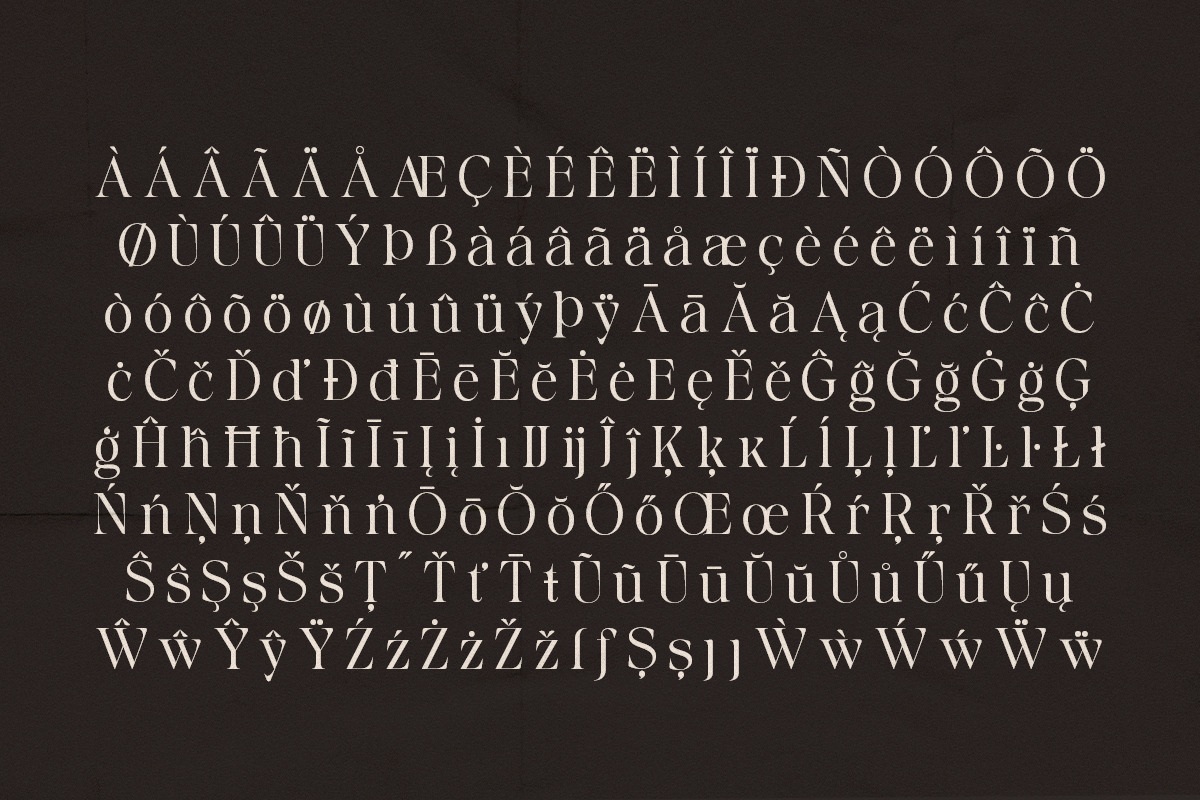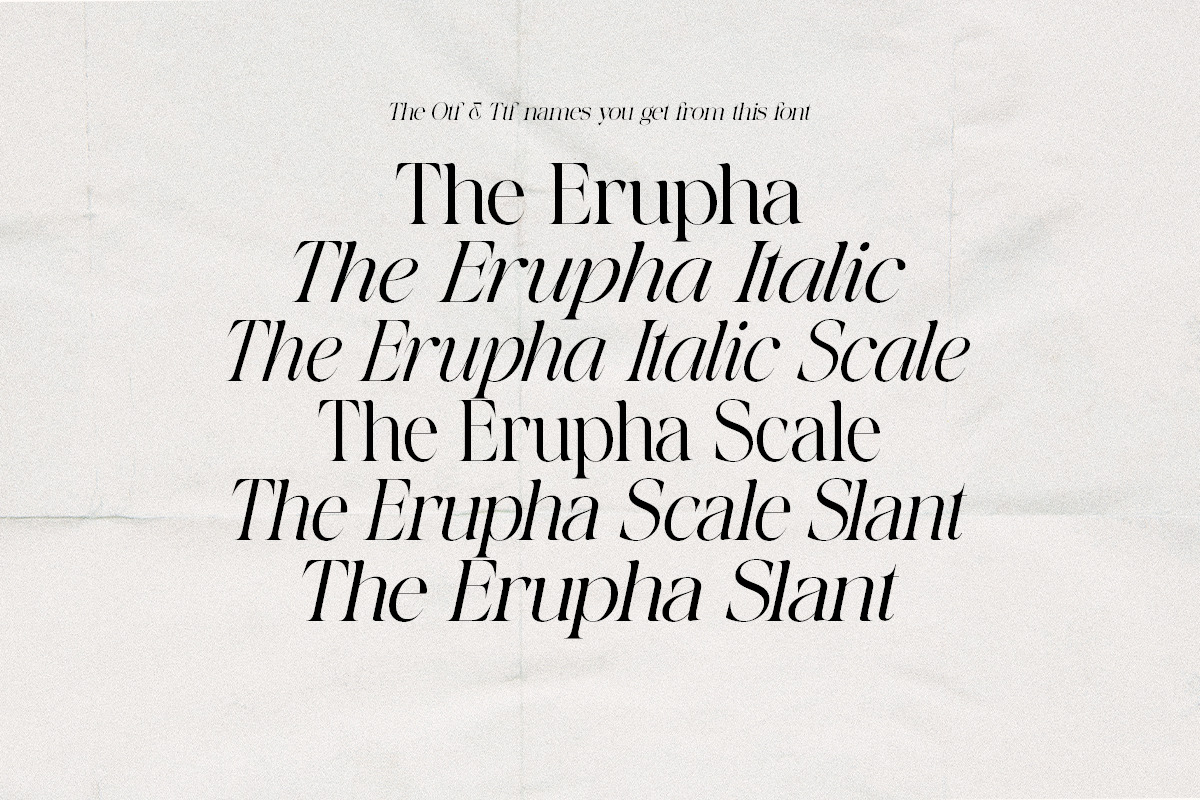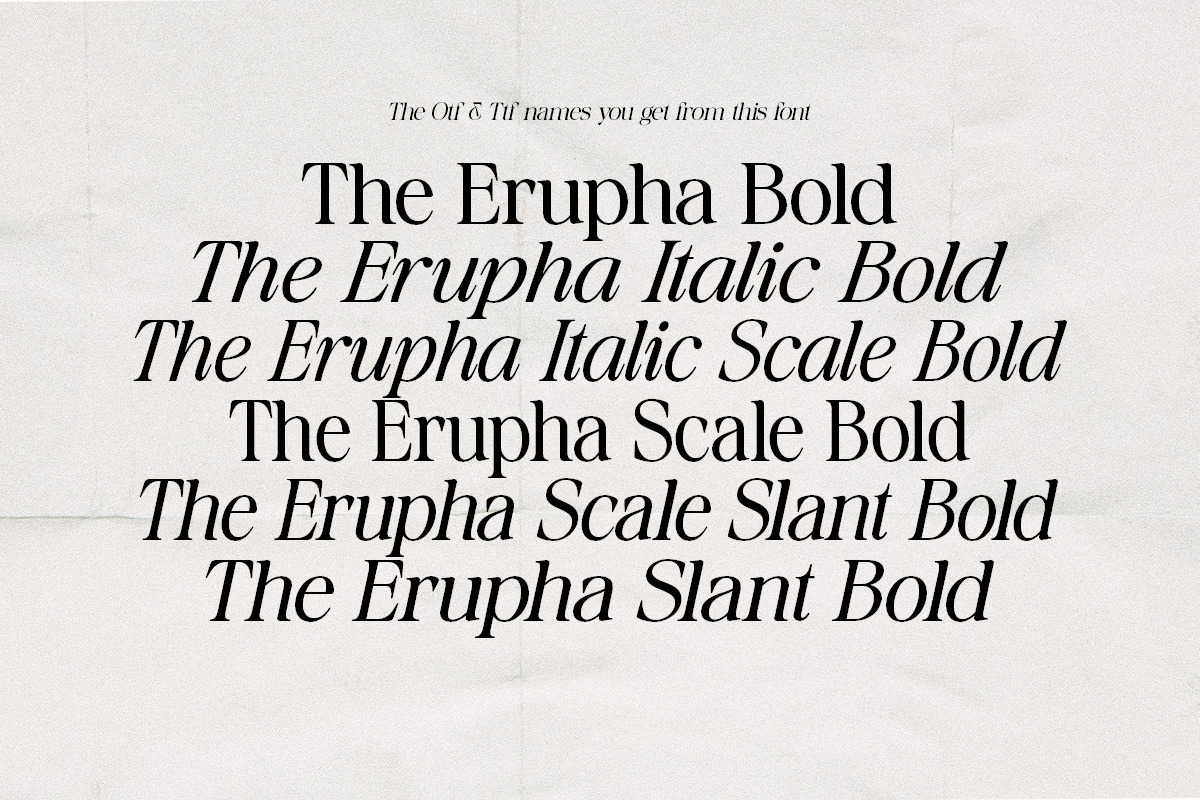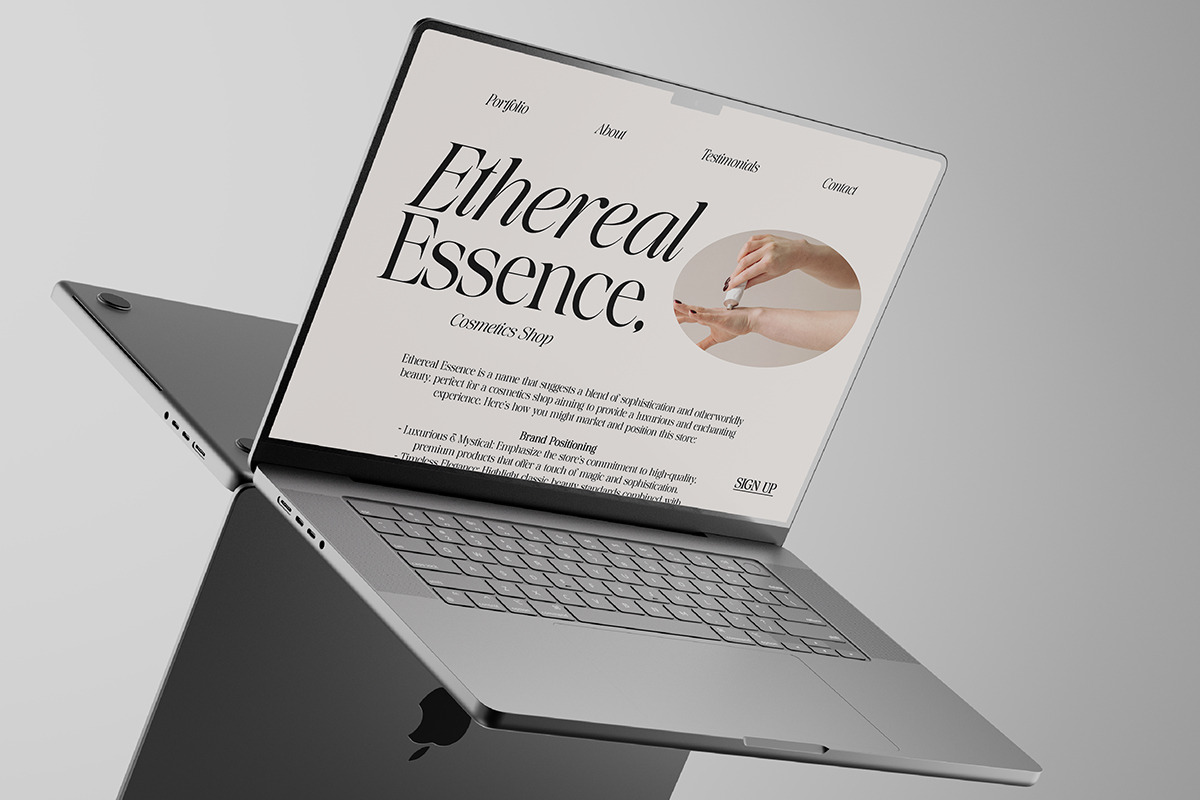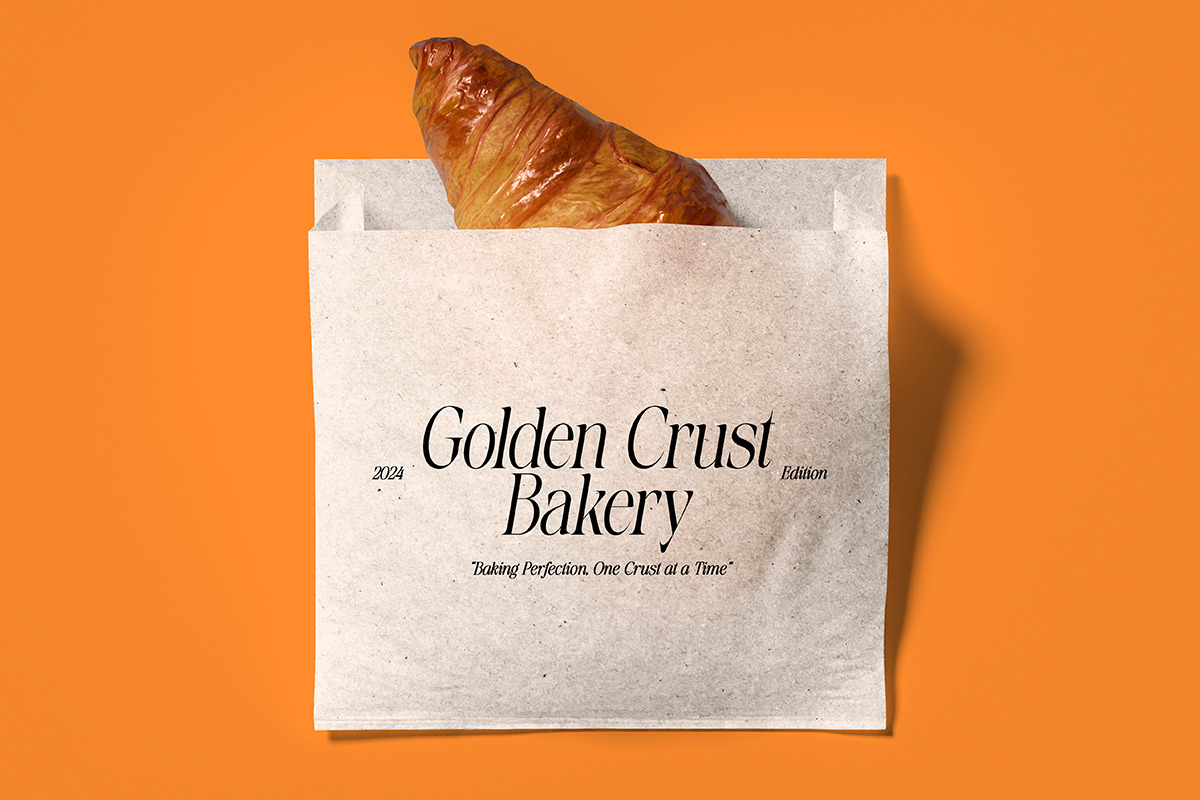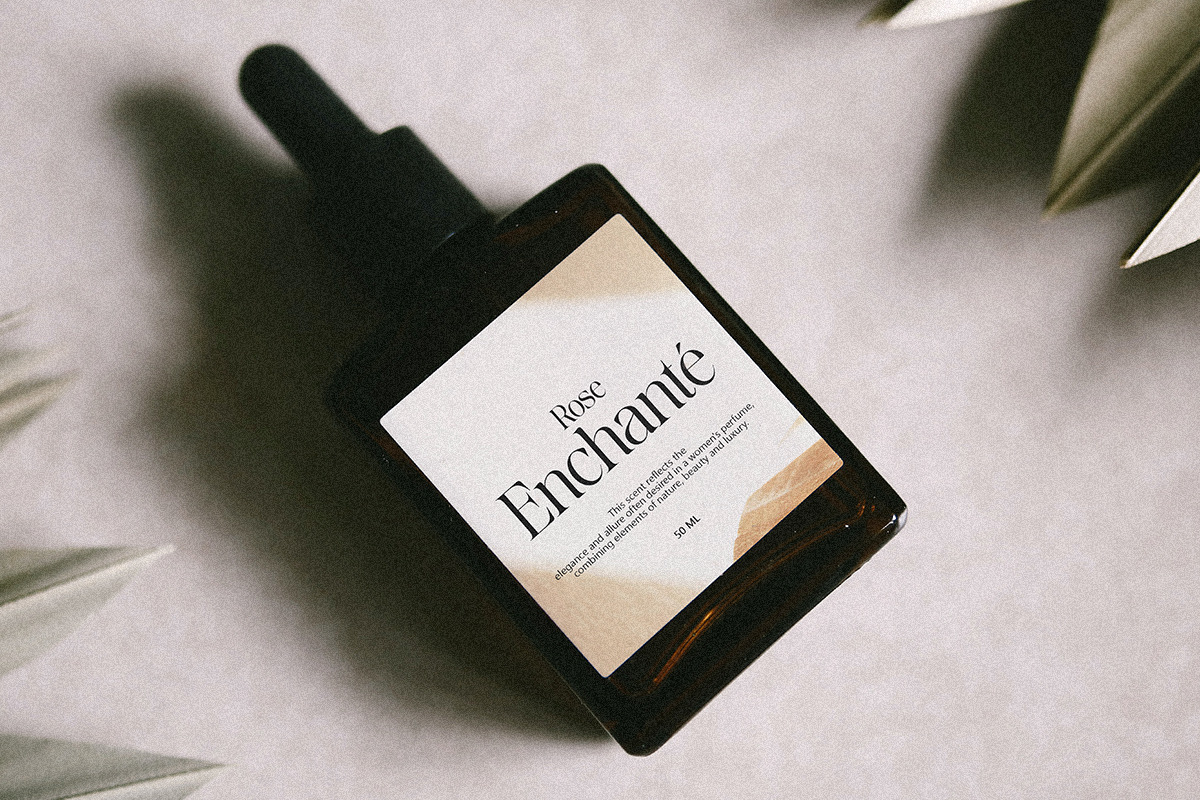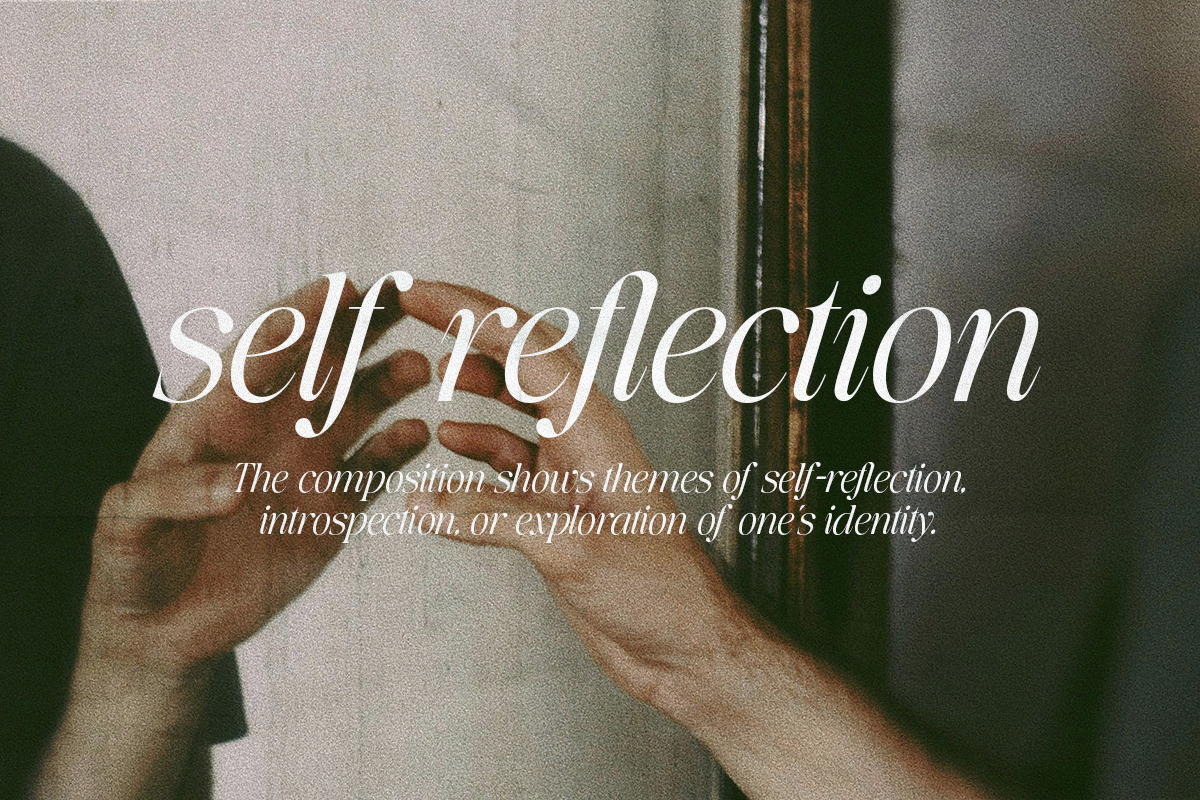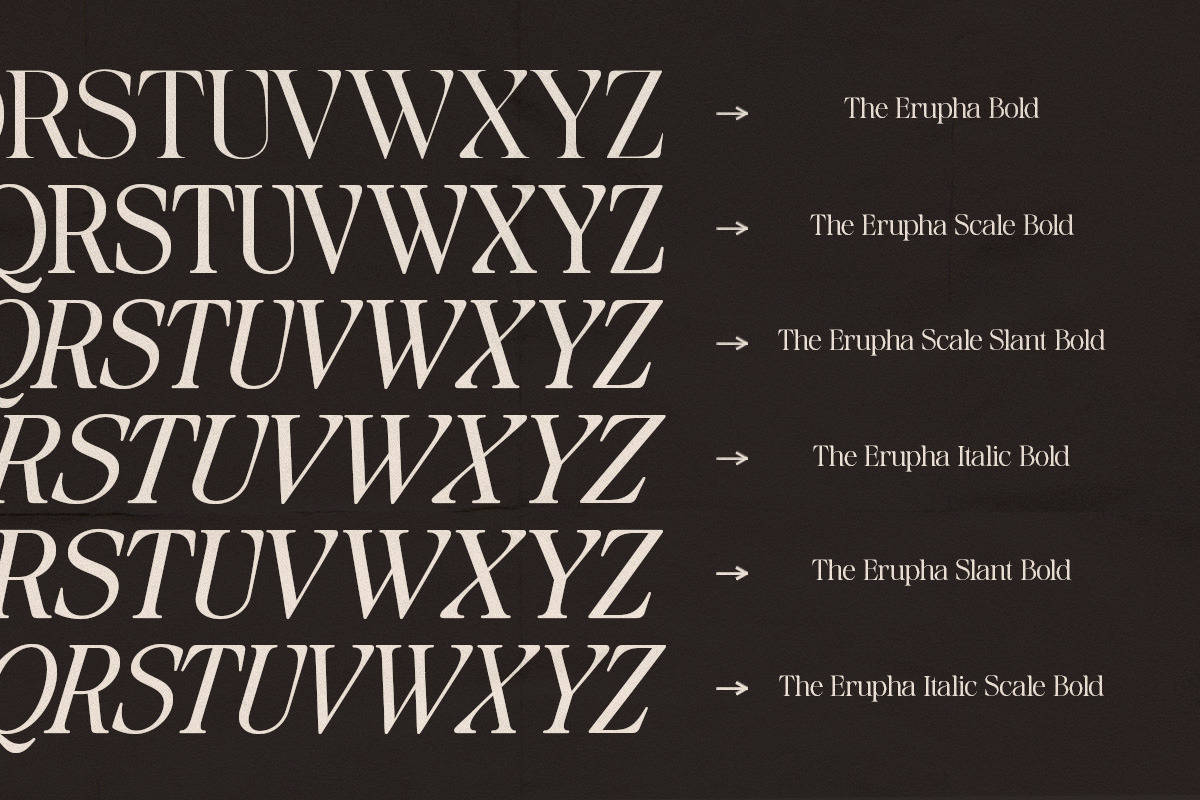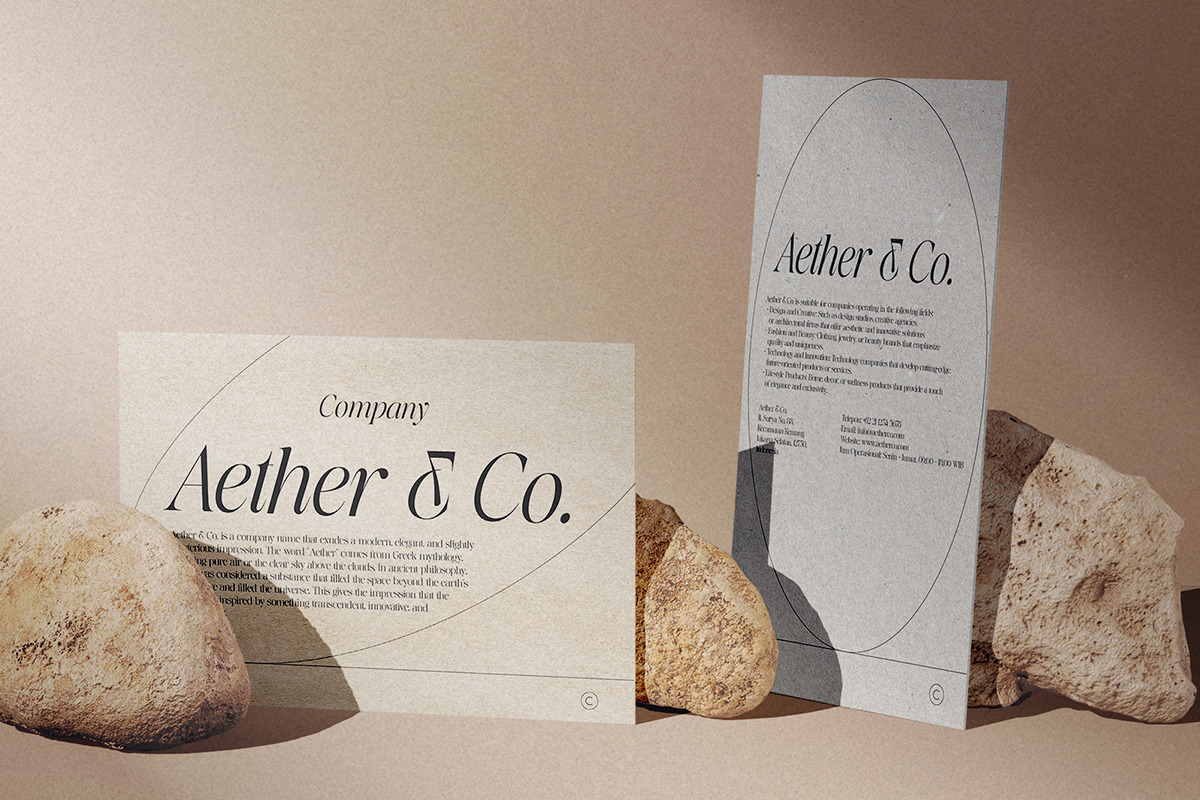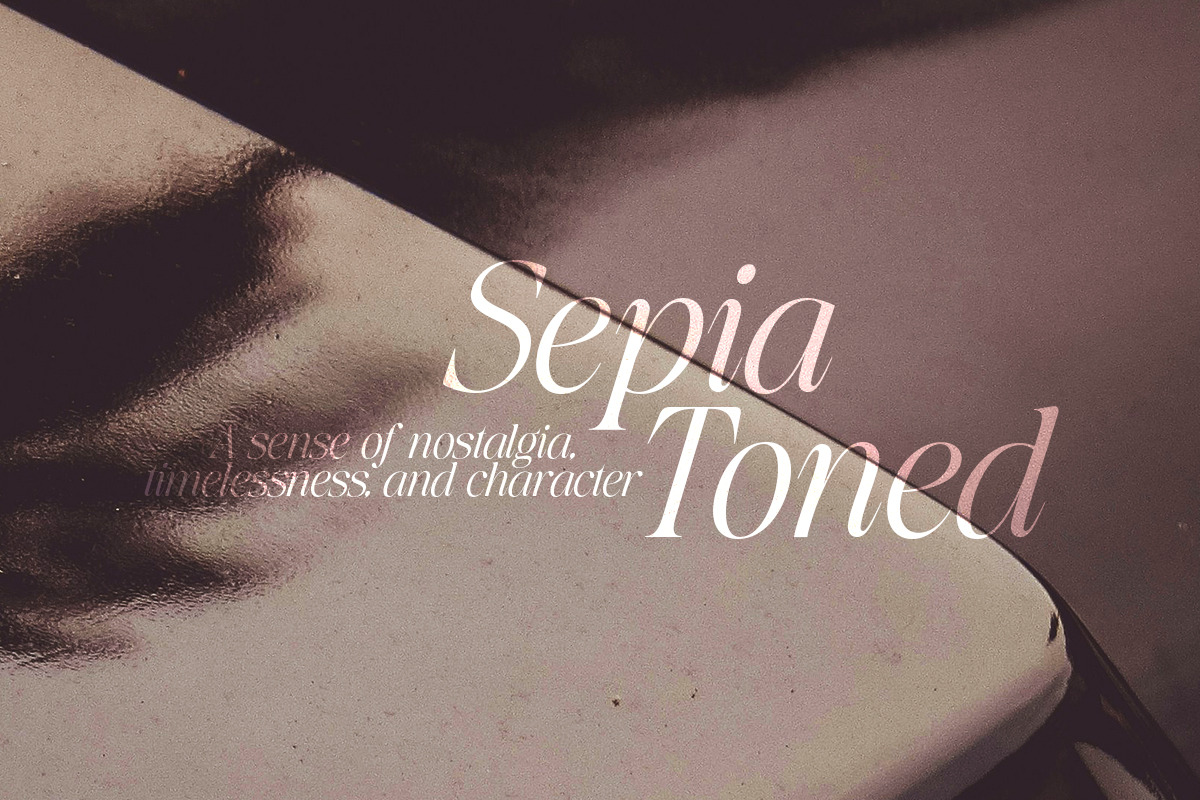
Introducing The Erupha: A Serif Typeface for Modern Aesthetics
Experience the charm of timeless elegance with The Erupha, a carefully crafted serif typeface that blends classic charm with contemporary style. Its high-contrast strokes and graceful curves create a visual symphony that captivates the eye and enhances any design. Whether you’re creating a sophisticated editorial layout, a striking brand identity, or an engaging website, The Erupha versatility and refined beauty will make your work stand out.
Immerse yourself in the world of The Erupha, where each character has been carefully designed to exude strength and refinement. From its carefully sculpted serifs to its perfectly balanced proportions, this typeface is a testament to the timeless power of classic typography. Its true italics, with their unique personality, add a touch of dynamic movement and visual interest, allowing you to create designs that are both captivating and easy to read.
Effortless Elegance Erupha’s clean lines and balanced proportions exude classic charm, making it ideal for a variety of applications.
Elegant Ligatures Add a touch of personality with a curated collection of ligatures, creating unique and eye-catching letter combinations.
OpenType Features Take full control of your typography with powerful OpenType features, including ligatures.
Multilingual Support With support for over 90 languages, The Erupha ensures your message reaches a global audience.
True Italics These are not just slanted versions—they’re thoughtfully designed to harmonize with the upright forms, creating a cohesive and elegant rhythm.
Editorial Design: Magazines, newspapers, books – Erupha legibility and elegance make it perfect for long-form text.
Branding & Logos: Create a sophisticated and memorable brand identity with Erupha timeless appeal.
Web Design: Erupha’s clean lines and high contrast ensure optimal readability on screens of all sizes.
Packaging & Print: Enhance your product packaging and printed materials with a touch of classy luxury.
Invitations & Stationery: Make a lasting impression with Erupha elegant presence on invitations, greeting cards, and other stationery.